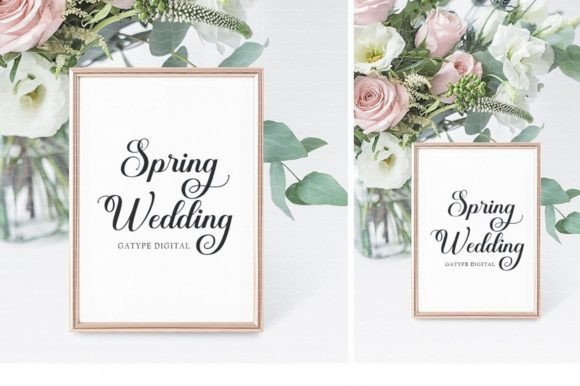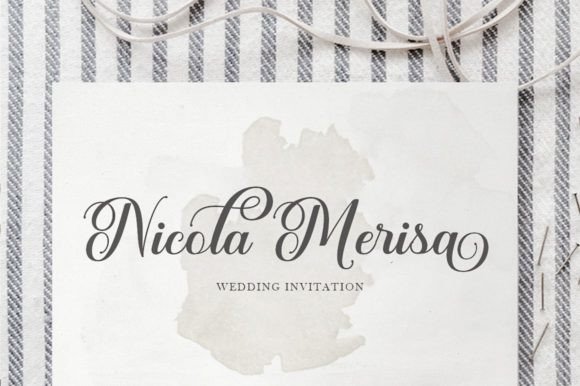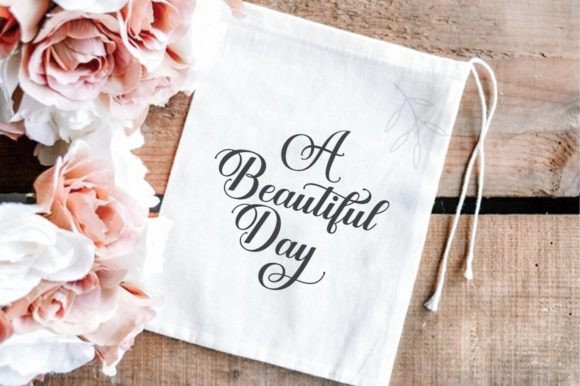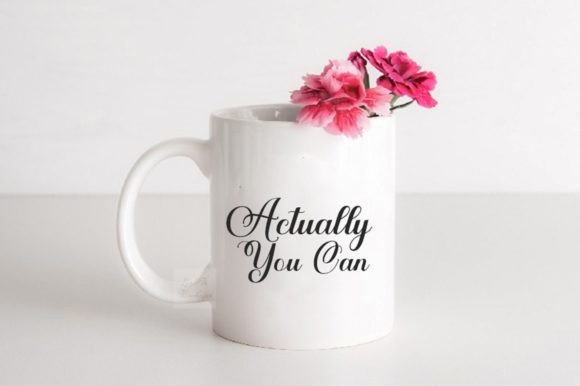
Introduction to Methiya Font Font
Fonts play a crucial role in design, and the Methiya Font font is a typeface that brings both character and versatility to any project. Whether you’re working on a branding project, a website, or a print design, the Methiya Font font offers a unique style that can elevate your work.
Methiya is a beautiful, elegant, and modern handwritten font perfect for branding, logos, invitations, and many more.
The Methiya Font font is more than just a typeface – it’s a design tool that helps you communicate your message with style and clarity. Its unique character set and versatile design make it suitable for a wide range of applications, from elegant invitations to bold headlines.
With its carefully crafted letterforms and balanced proportions, the Methiya Font font ensures readability and visual appeal across all mediums.
The Methiya Font font stands out with its unique design, exceptional readability, and versatility across various design applications.